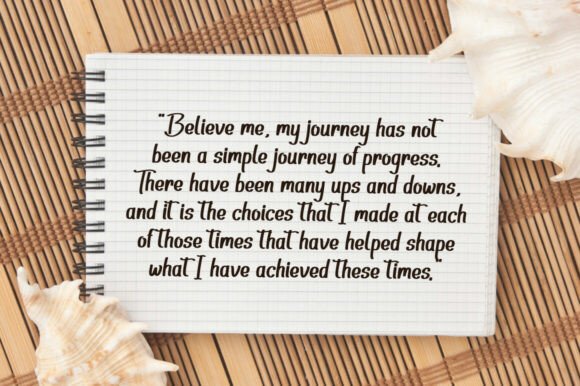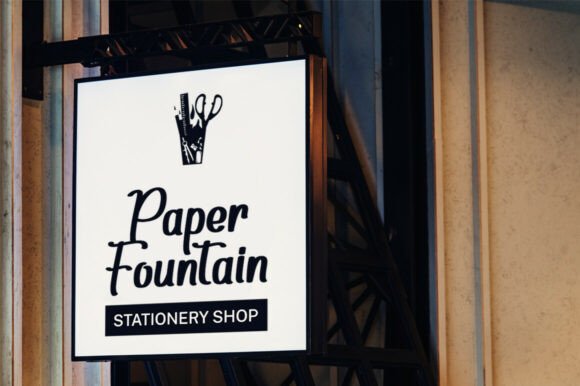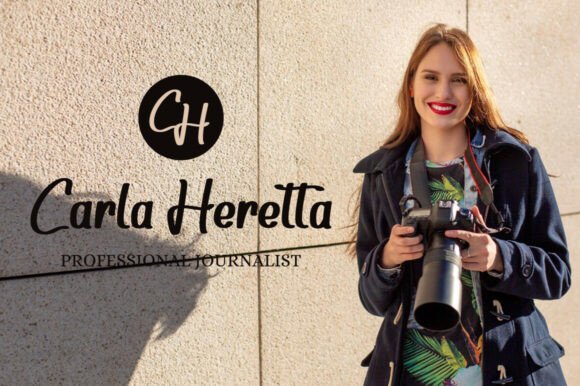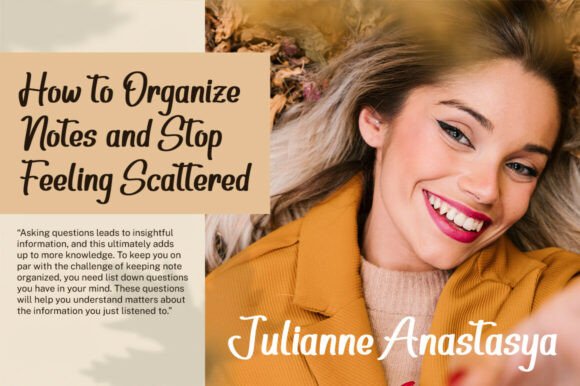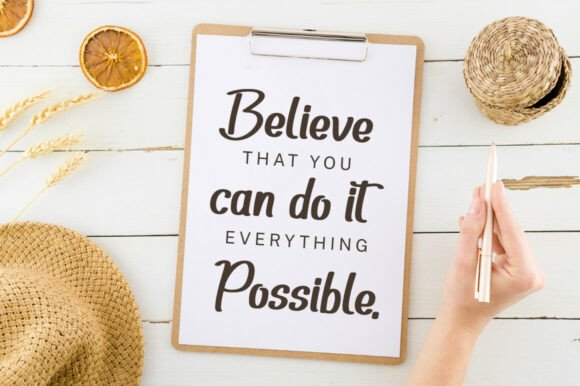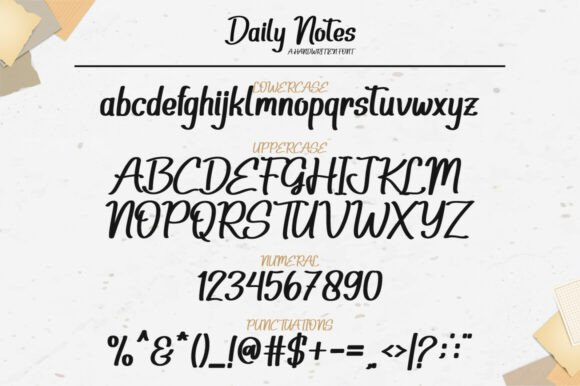
The Daily Notes Font: A Timeless Handwritten Treasure
I’ll never forget the time I was working on a branding project for a cozy coffee shop. My client wanted a font that felt warm, inviting, and uniquely handmade. I spent hours scouring the internet for the perfect match, but nothing seemed quite right. That was until I stumbled upon the Daily Notes font. It’s been a game-changer for me ever since, and I’m excited to share its charm with you!
- ✨ The Daily Notes font is a lovely and timeless handwritten font that adds a touch of warmth to any design project.
- ✅ Its elegant, cursive strokes make it perfect for creating eye-catching logos, branding, and quotes.
- 💫 The font’s versatility allows it to be used for both digital and print projects, from social media graphics to business cards and brochures.
- 🎨 Daily Notes also features a range of OpenType features, including glyphs and stylistic alternates, giving you plenty of creative freedom.
While Daily Notes is an amazing font, there are a few things to keep in mind:
- ⚠️ Some of the more intricate glyphs and swashes might not display properly on all devices or platforms, so it’s essential to test the font before finalizing your design.
- 🤔 If you’re planning to use Daily Notes for a large-scale project, such as a book or magazine, you might want to consider investing in a font with more extensive character sets and language support.
The Story Behind Daily Notes
Daily Notes was designed by a talented typographer who wanted to create a font that captured the warmth and intimacy of handwritten notes. Inspired by vintage letters and journals, the designer carefully crafted each letterform to evoke a sense of nostalgia and connection. The result is a font that’s both timeless and versatile, perfect for a wide range of design projects.
Q: What type of projects is Daily Notes best suited for?
A: Daily Notes is an excellent choice for branding, logos, quotes, and any project that requires a touch of elegance and sophistication.
Q: Does Daily Notes support OpenType features?
A: Yes, Daily Notes features a range of OpenType features, including glyphs, stylistic alternates, and ligatures, giving you plenty of creative freedom.